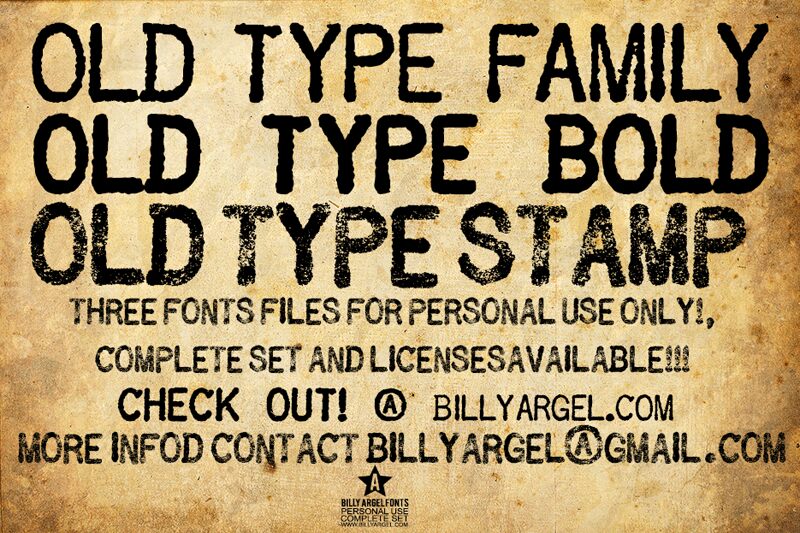
Old Type is a striking display font that exudes a weathered, eroded aesthetic. Designed by Billy Argel, this font's bold, irregularly shaped letterforms evoke a sense of vintage character and industrial grit. The uneven edges and textured surfaces give the font a raw, edgy appeal, making it well-suited for eye-catching headlines, posters, and branding applications that demand a bold, impactful visual presence.
The font's distinctive style lends itself to a range of design contexts, from vintage-inspired layouts to modern, urban-influenced compositions, adding a unique visual flair to any project.